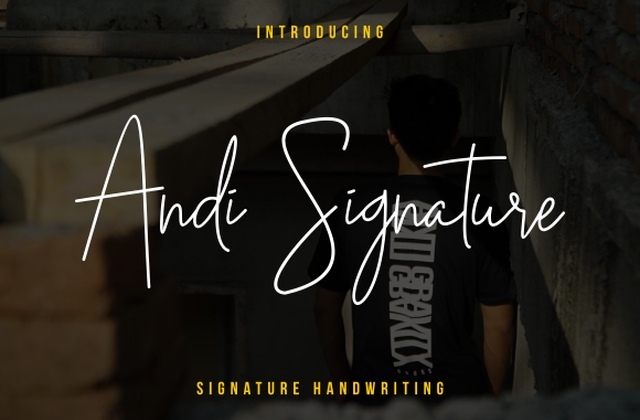
Andi Font
Andi Font is perfect for various design applications including friendly brand identities, approachable service provider logos, personal blog headers, casual lifestyle branding, community organization materials, family-oriented business signage, welcoming retail environments, accessible website interfaces, warm hospitality communications, and personable small business identities. This welcoming typeface excels in projects requiring personal connection and approachable charm that builds trust and creates genuine human connections through authentic, friendly design.
What makes Andi Font so exciting is its perfect embodiment of genuine friendliness and personal warmth through letterforms that feel like a smile in typographic form. The font features gentle curves that create visual comfort, balanced proportions that ensure excellent readability for all audiences, and subtle personality touches that add warmth without overwhelming the message. Its distinctive friendly character and universal appeal make it ideal for businesses and organizations seeking to communicate accessibility, trustworthiness, and the kind of genuine human warmth that creates lasting connections with diverse audiences.
Andi Font family includes multiple approachable weights from light to bold, along with complementary styles that enhance its versatility for different friendly applications. Each style maintains the font's signature welcoming character while providing clear hierarchy options for accessible communications. The family also features inclusive character sets, friendly symbols, and warm decorative elements that can be combined with the letterforms to create cohesive personal connection design systems.
Whether you're developing personal brands, community services, or friendly business communications, Andi Font Free Download provides warm typography that creates genuine connections and celebrates the power of authentic human interaction and personal approach. This typeface transforms routine communications into welcoming experiences that feel personal, approachable, and genuinely caring. The font's friendly appeal makes it particularly effective for service providers, community organizations, and small businesses that prioritize personal relationships and authentic human connection over corporate distance.
Andi Font stands out by delivering authentic friendliness that feels genuinely warm rather than artificially cheerful or professionally manufactured. Its carefully balanced approachable proportions and friendly details ensure that designs feel naturally welcoming while maintaining professional credibility and universal accessibility. From personal branding to community communications, this font provides designers with tools to create communications that celebrate human connection and demonstrate sophisticated understanding of approachable design through friendly, accessible typography that opens hearts and builds genuine relationships.